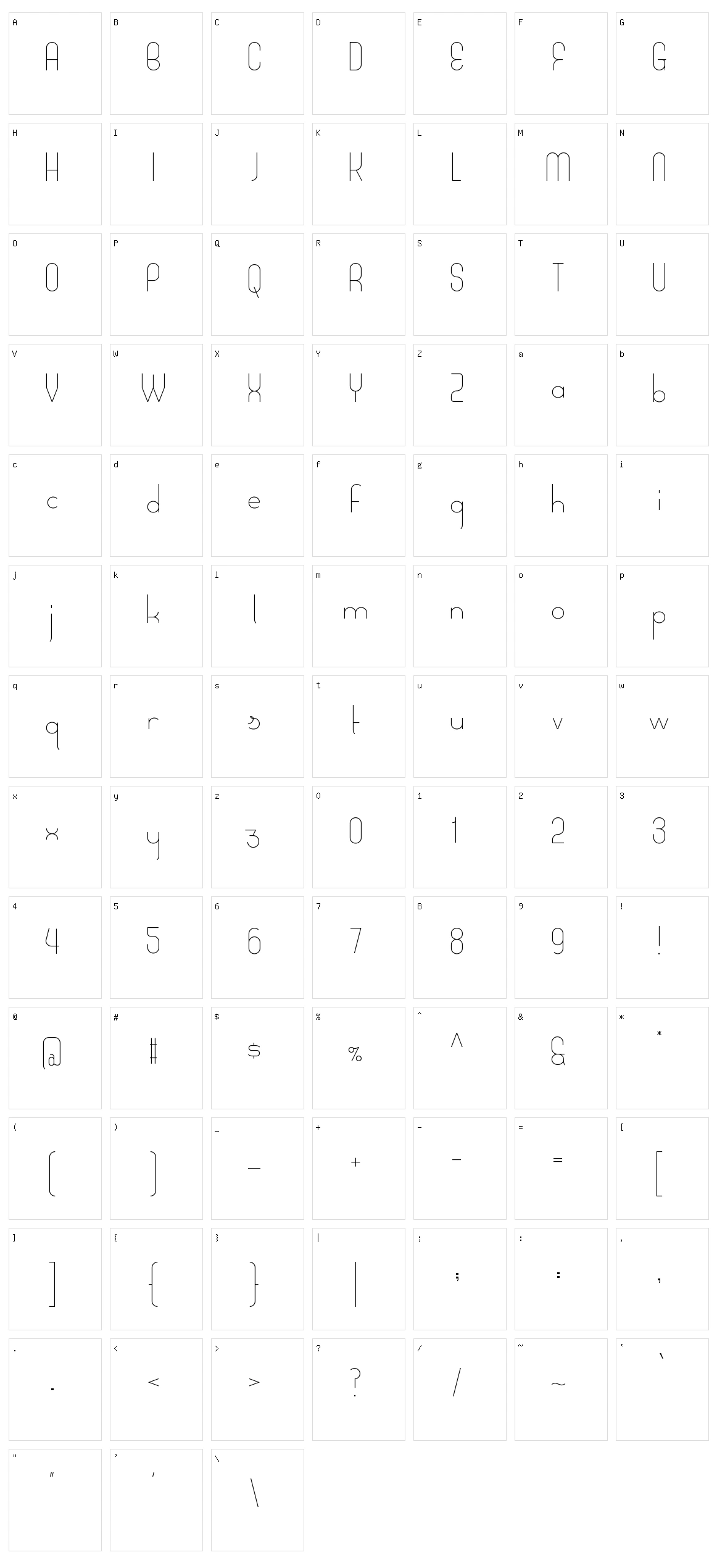
The free font STF Oblongus is carefully designed by Ron Ruedisueli, showcasing a thoughtful balance of creativity and usability and falls under the Sans serif font style. When you download the ZIP file, it contains only 20.89 KB of font files, making it lightweight and quick to download. Please review the license details below to understand permitted usage and distribution rights. If license information is not available, we recommend using this font for personal projects only or contacting the author directly for commercial usage permissions.